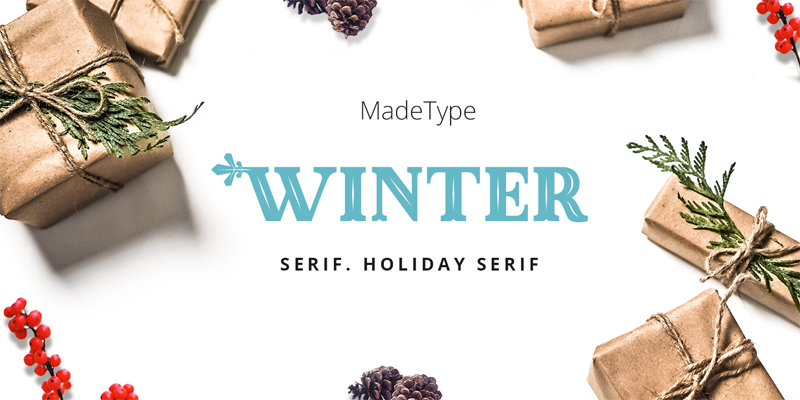
Made Winter is the New Year's font. Inspired by the holiday mood and created for your future wonderful works. Well suited for headlines, short texts, postcards, calendars, magazines, books and logos Font is FREE for PERSONAL USE. Contact me mail for commercial use and questions: Madetypeinfo@gmail.com ----- FOR PERSONAL AND COMMERCIAL WORK https://www.fontspring.com/fonts/madetype https://creativemarket.com/MadeType https://thehungryjpeg.com/madetype https://www.youworkforthem.com/designer/1002/madetype/ ----- https://www.behance.net/madetype Email for questions: Madetypeinfo@gmail.com |